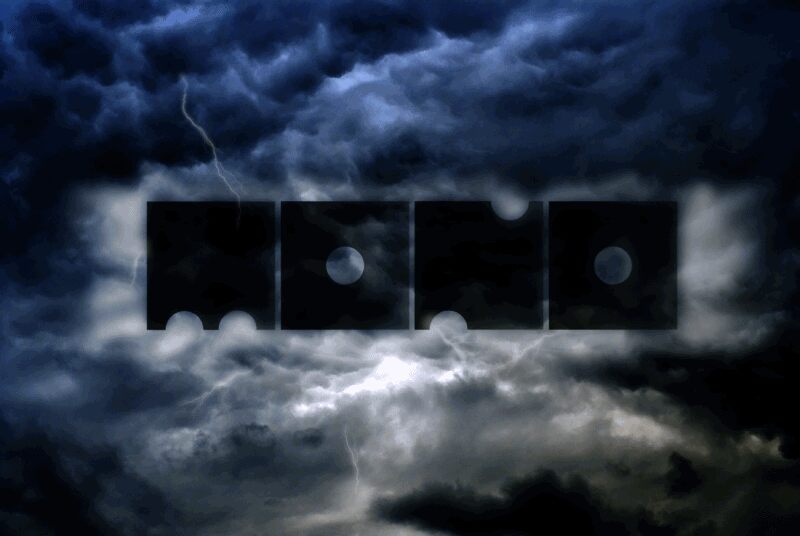
Mono
Mono is a bold, expanded display font designed by GianWick that exudes a distinctive techno aesthetic. Its sharp, geometric letterforms and expansive width create an impactful, futuristic visual presence.
This font is particularly well-suited for attention-grabbing headlines, bold branding elements, and immersive digital experiences. The clean, minimalist style of Mono lends itself to a wide range of applications, from sleek user interfaces to striking movie posters and album covers.
Its versatility and strong personality make it a compelling choice for designers seeking to infuse their projects with a contemporary, technology-driven aesthetic.